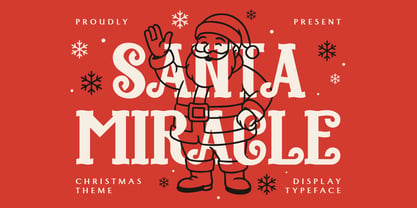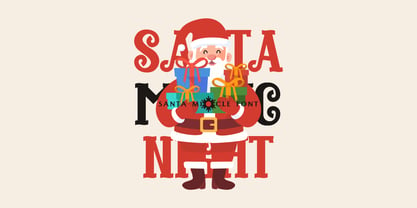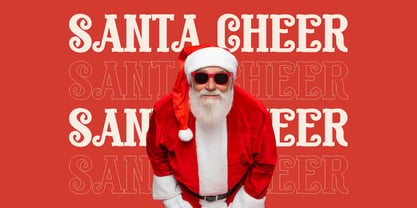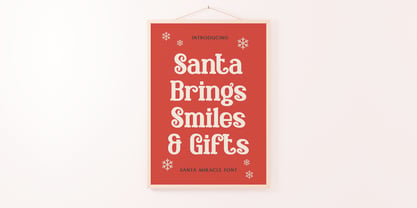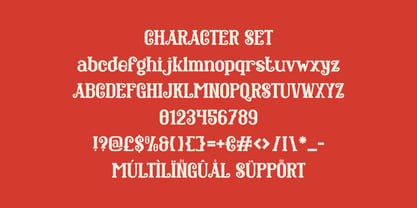
Santa Miracle
par Shanaf
La famille de polices Santa Miracle a été conçue par Yesie Erma Yunita et publiée par Shanaf. Santa Miracle contient 1 styles. En savoir plus sur cette famille
Santa Miracle Christmas Display Font is built with bold proportions, confident weight, and balanced letter height that feels joyful and welcoming. Each character carries thick strokes with soft curves and playful terminals, creating a friendly rhythm that feels classic yet lively. The shapes remain sturdy and well-spaced, allowing words to stay legible even at large display sizes. Decorative details are applied with restraint, adding charm without clutter. The overall structure feels stable and festive, making headlines look celebratory and memorable. This font communicates warmth, generosity, and seasonal excitement while keeping a clean silhouette that designers can trust for strong visual impact. Santa Miracle Christmas Display Font excels in holiday-driven designs that need instant attention and emotional appeal. It performs well for branding, packaging, posters, and promotional headlines tied to Christmas campaigns. The bold display style supports clear messaging for advertising, storefront signage, and event titles. For greeting cards, gift-related products, and festive packaging, the font reinforces a joyful atmosphere and friendly tone. It also suits editorial layouts, book covers, and magazines that highlight seasonal themes. The character set supports versatile usage across print and digital formats, ensuring consistency throughout a holiday brand system. This font helps designs feel cheerful, timeless, and confidently festive.
Concepteurs: Yesie Erma Yunita
Fonderie: Shanaf